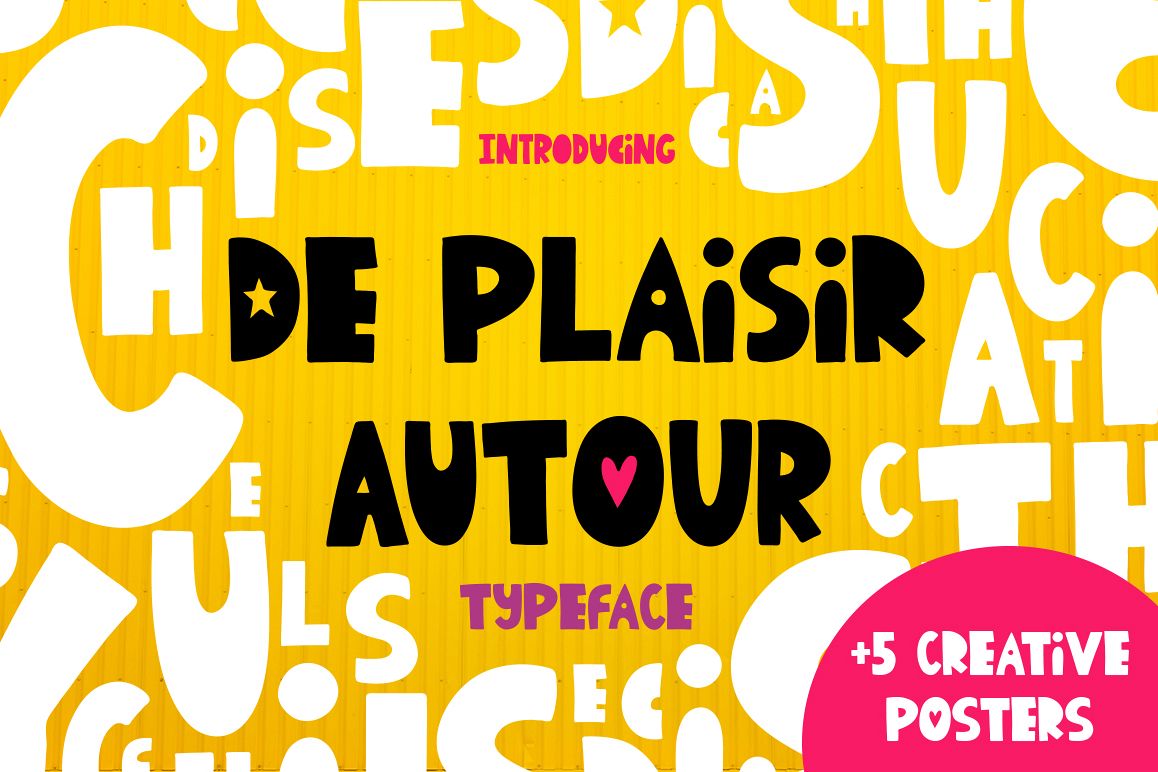
De Plaisir Autour - typeface
? De Plaisir Autour - Funny typeface! Font for your funny projects! ? This script is perfect for cards, prints, logos, invitations, arrange illustration and decoration. It has upper and lower case letters, numbers, special characters, accents.You will receive the fonts: